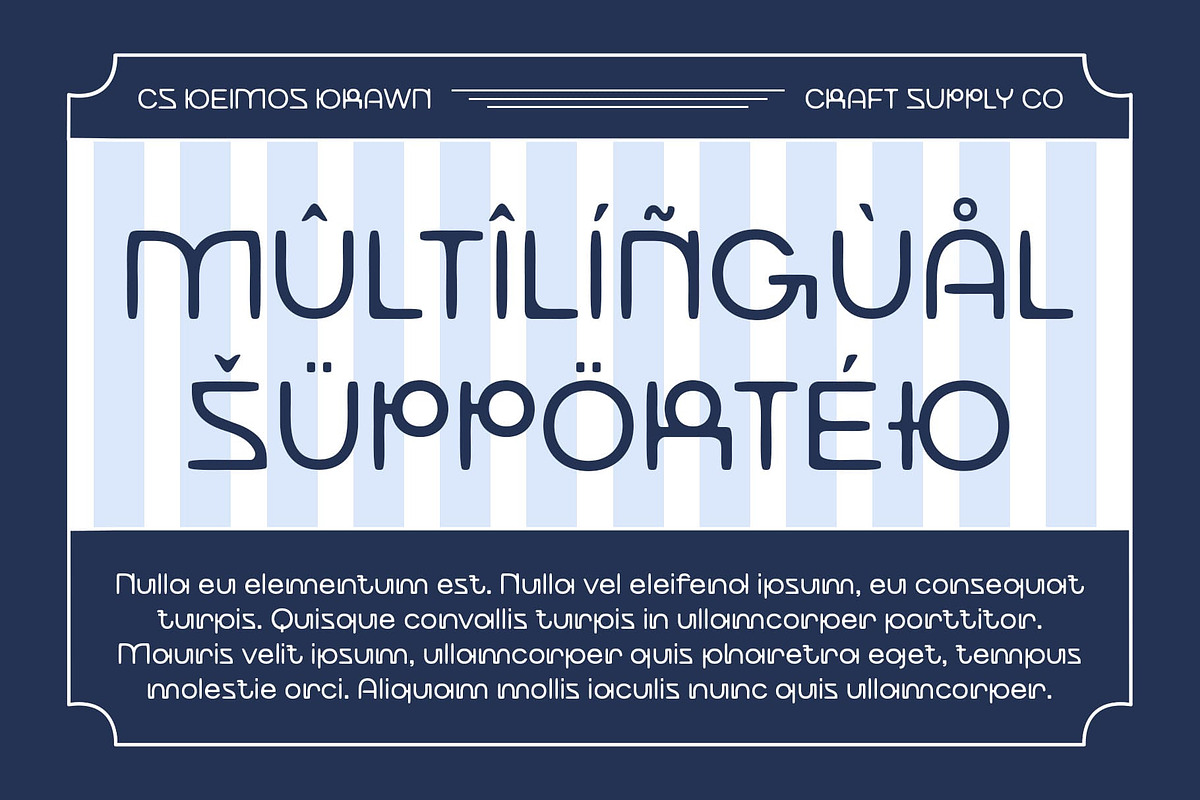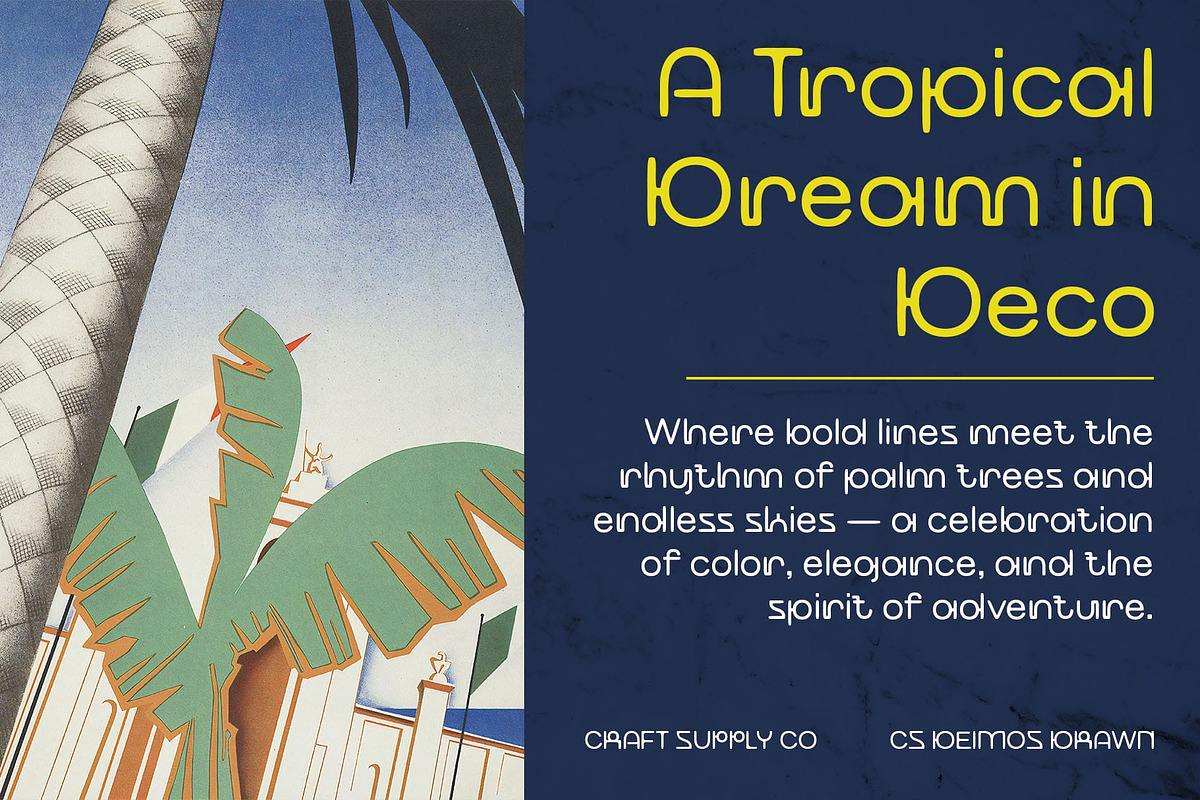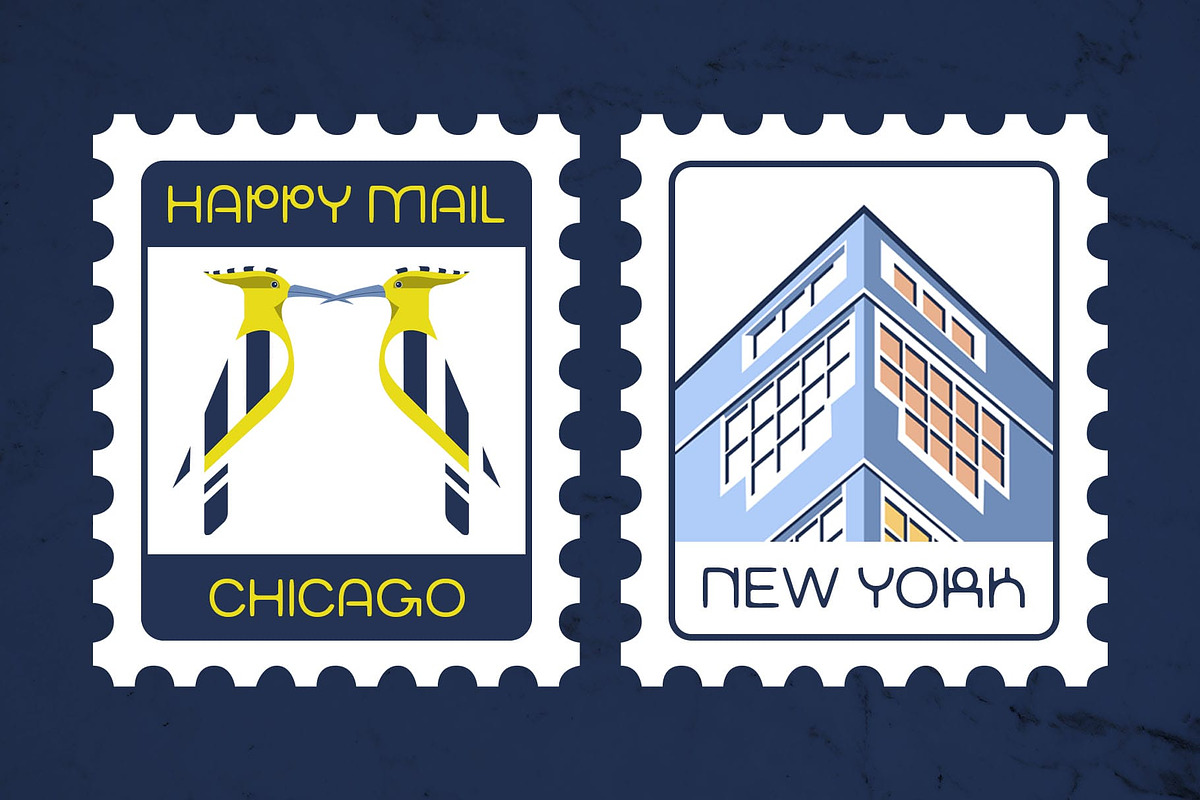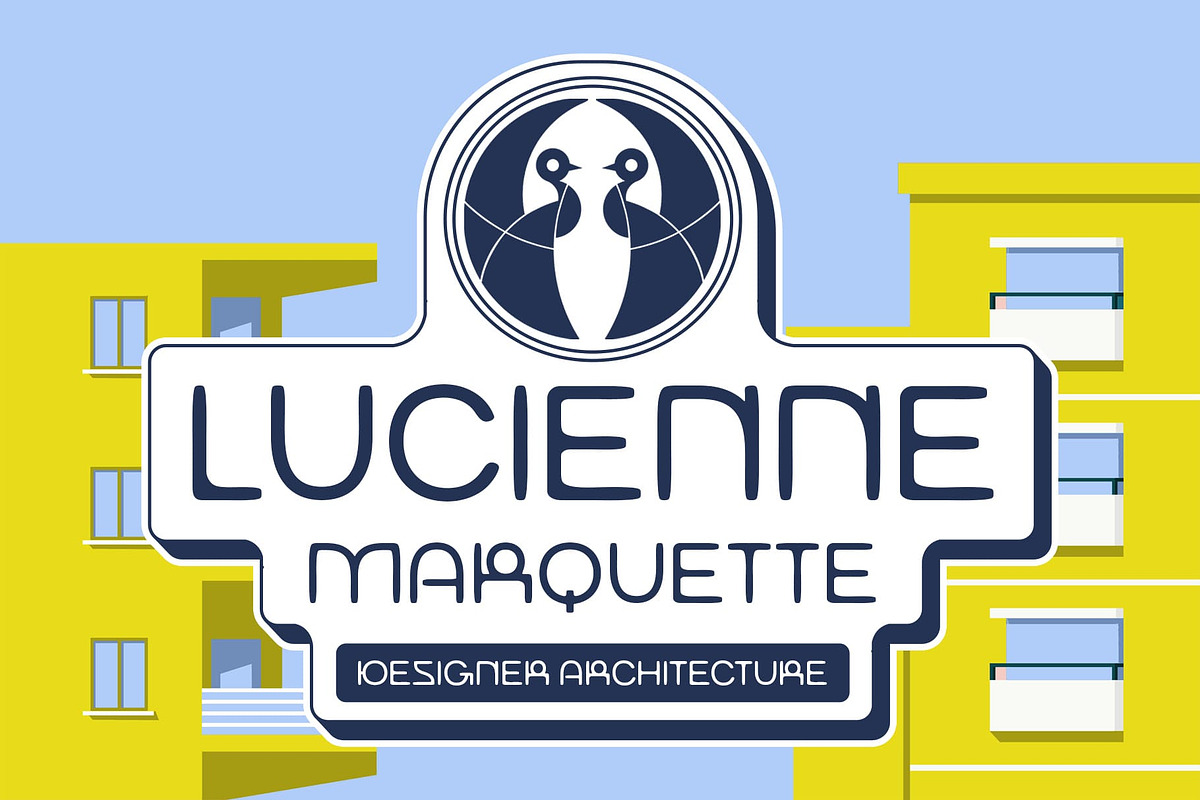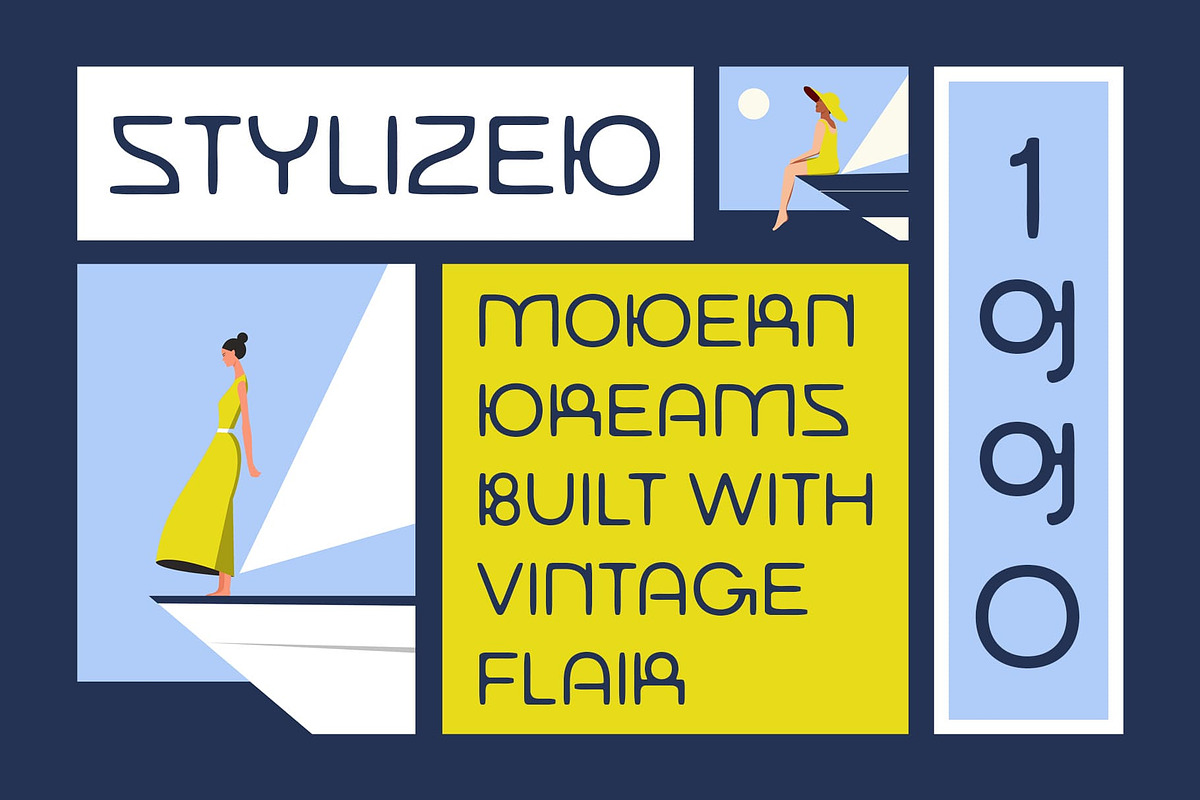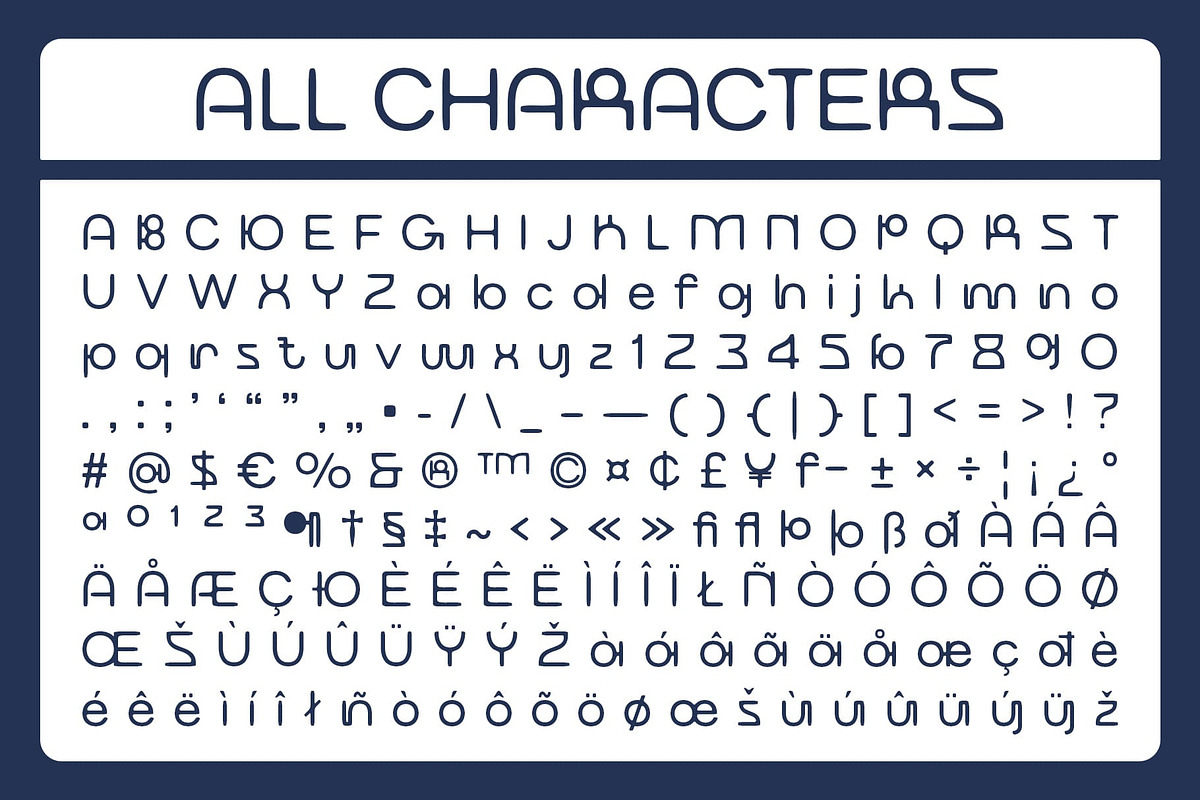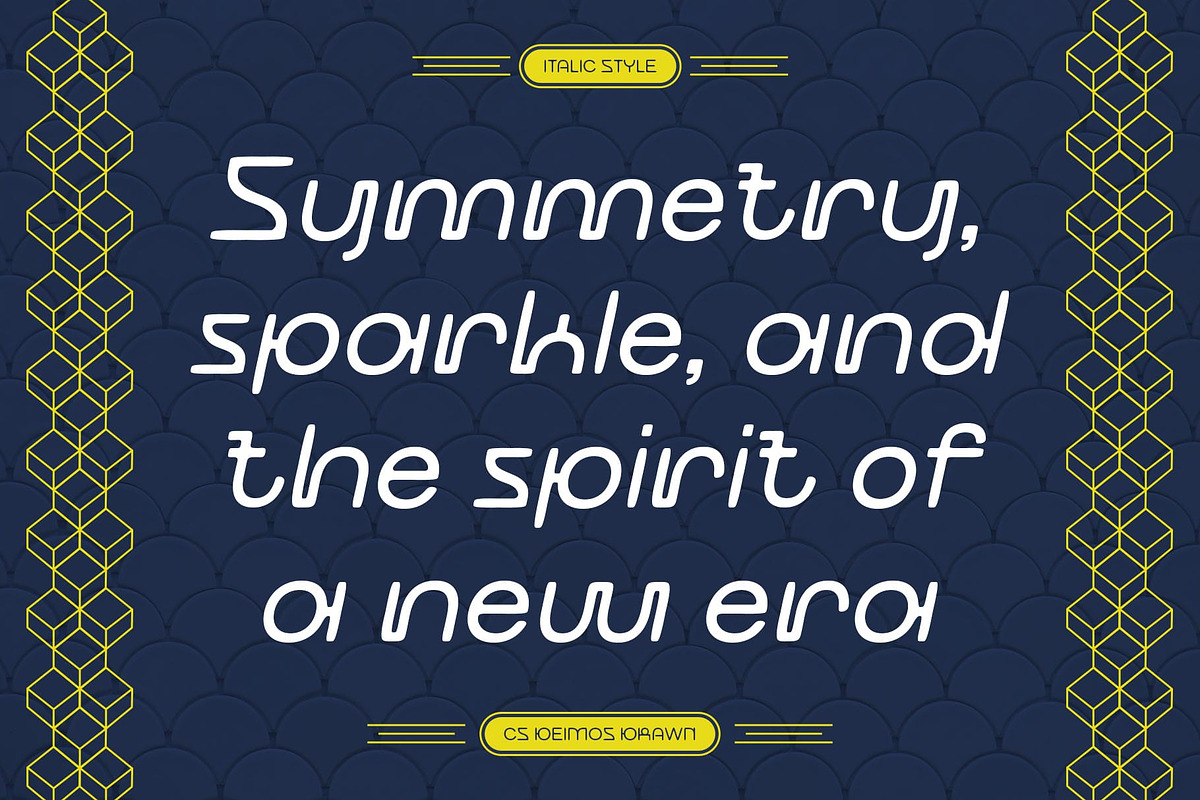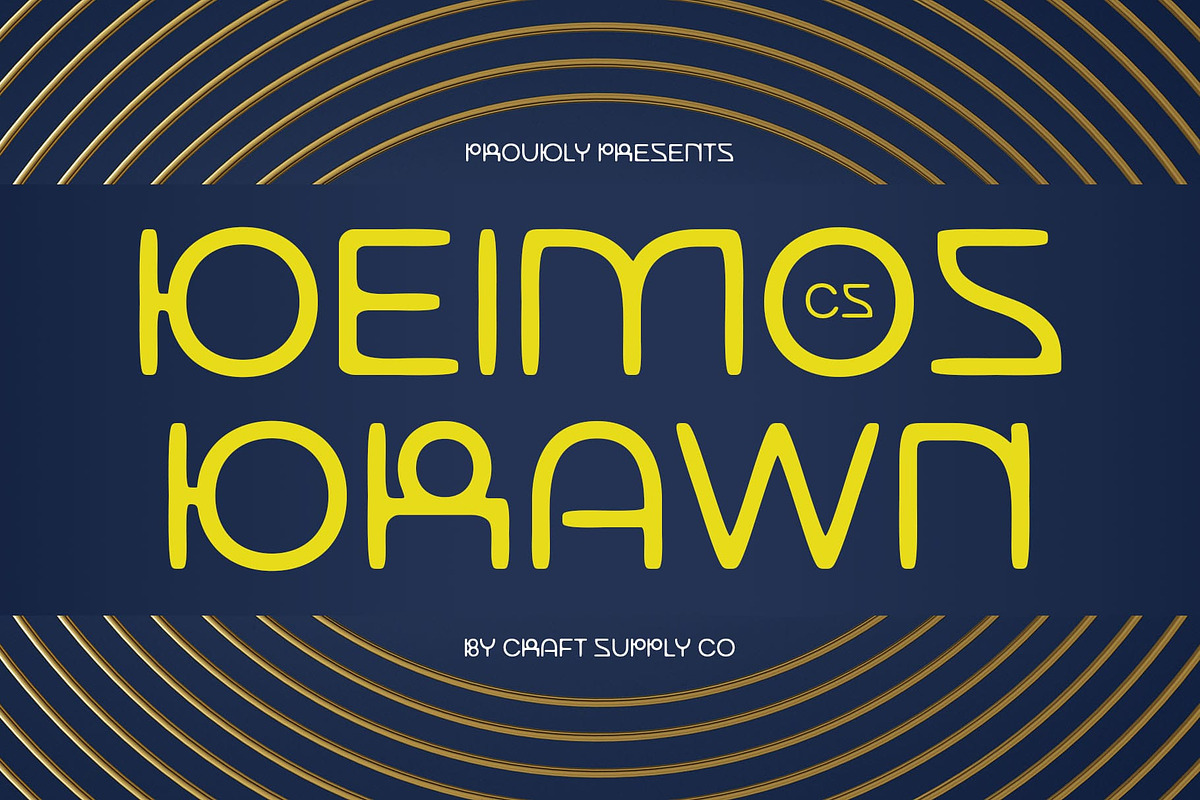
CS Deimos Drawn
CS Deimos Drawn Font – Art Deco Geometry with an Artistic Edge
Elegant Art Deco Meets Modern Geometry CS Deimos Drawn is a modern display font that captures the essence of Art Deco through its elegant symmetry and refined styling. Its geometric foundation provides a sense of structure and clarity, while the Deco influence brings a timeless, upscale aesthetic, perfect for sophisticated visual themes.
Hand-Drawn Effect for Creative Expression The drawn effect layered onto each character introduces a handcrafted and expressive dimension. This artistic texture contrasts the rigid geometry, adding movement and warmth that evoke a more personalized, dynamic appearance, making the font feel alive and engaging.
Perfect for Luxury Branding and Editorial Design With its blend of vintage inspiration and modern execution, this art deco font is ideal for high-end branding, luxury product packaging, and elegant editorial layouts. Its strong personality communicates both professionalism and artistic flair, suitable for designers who want their work to make a bold, memorable impression.
Versatile for Retro-Modern Visual Projects From posters and invitations to stylish websites and boutique labels, this font adapts seamlessly to both digital and print. This art deco font delivers a striking balance between classic refinement and contemporary creativity, making it a valuable asset for visually rich, expressive projects.